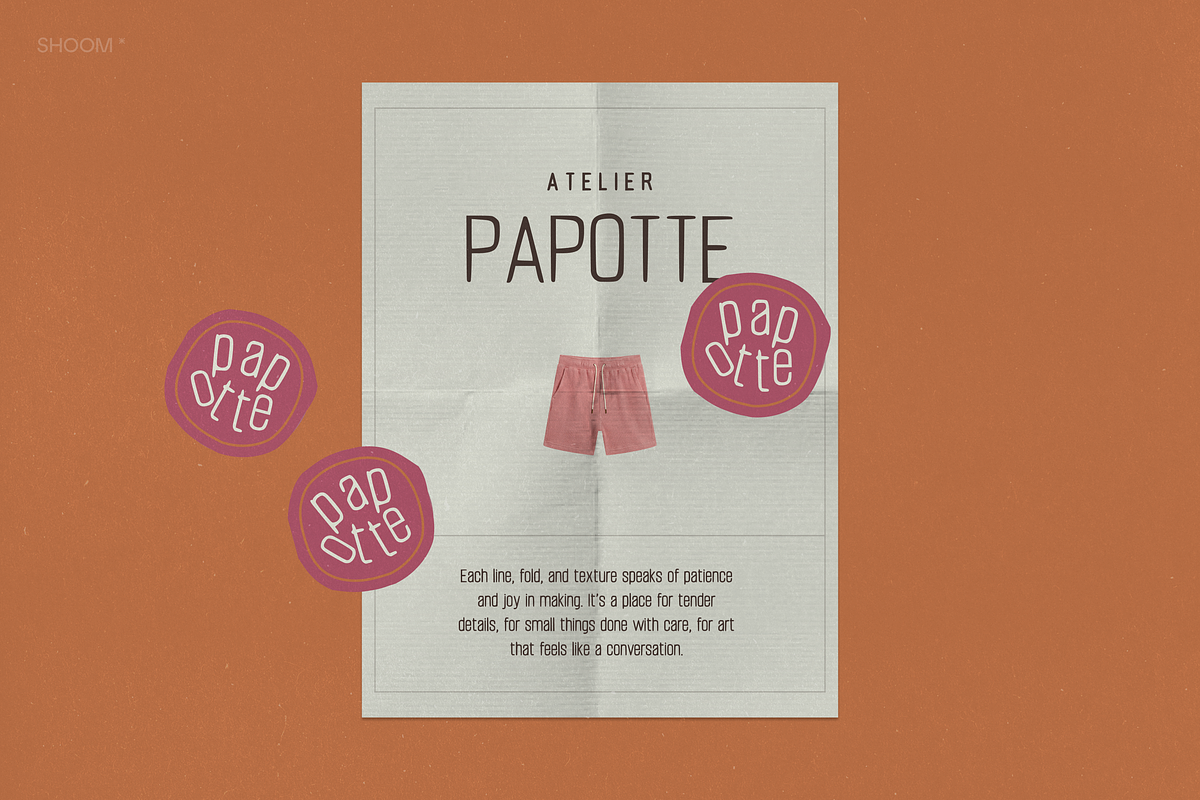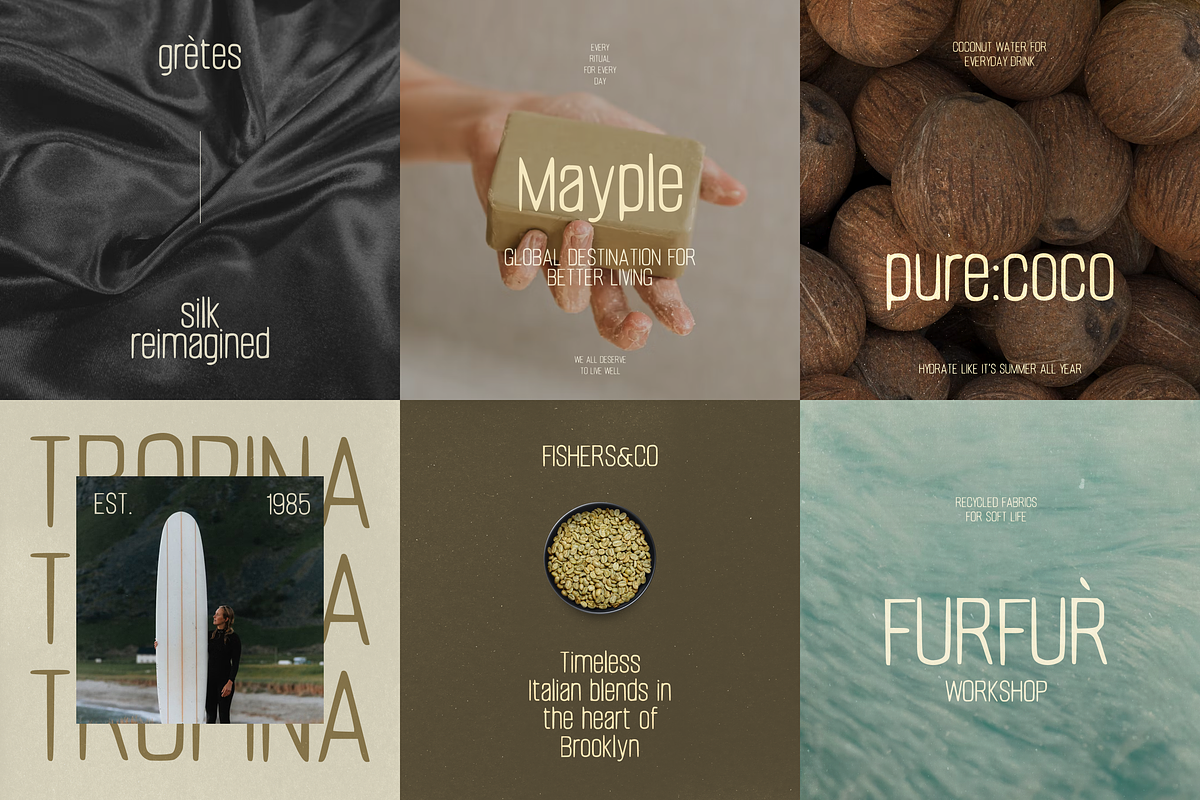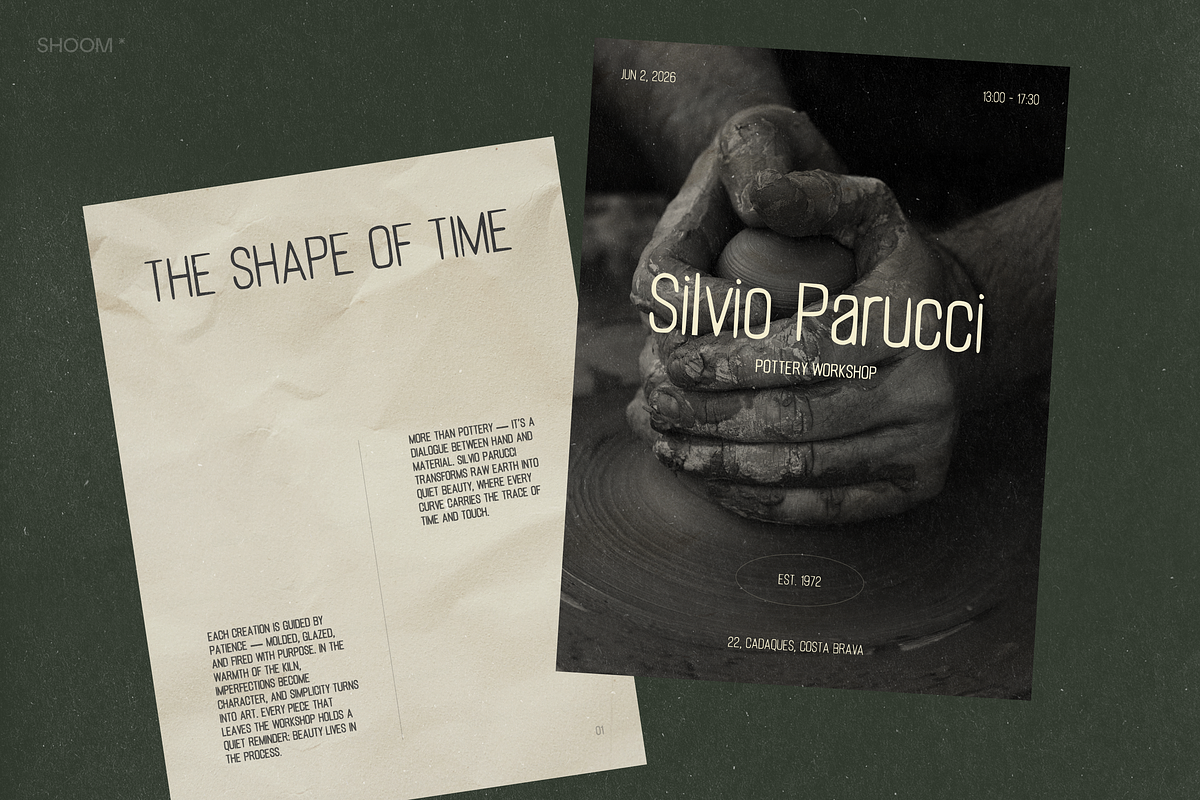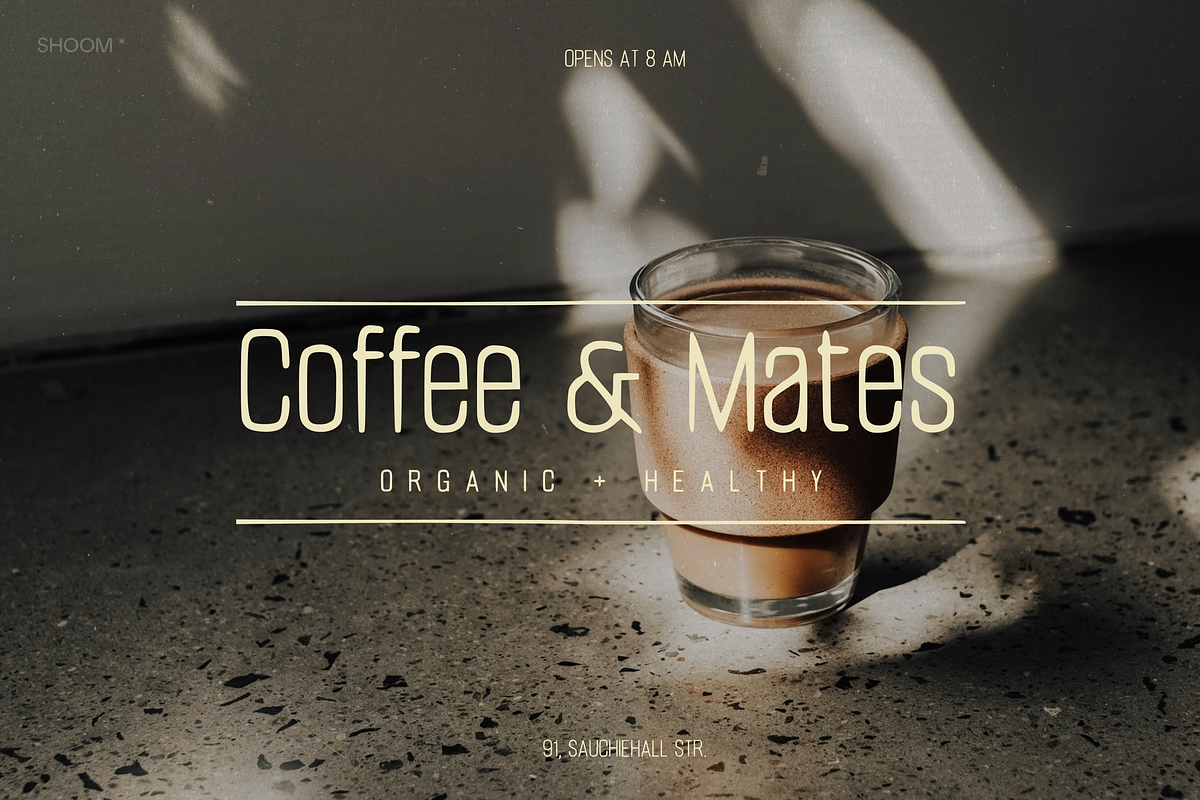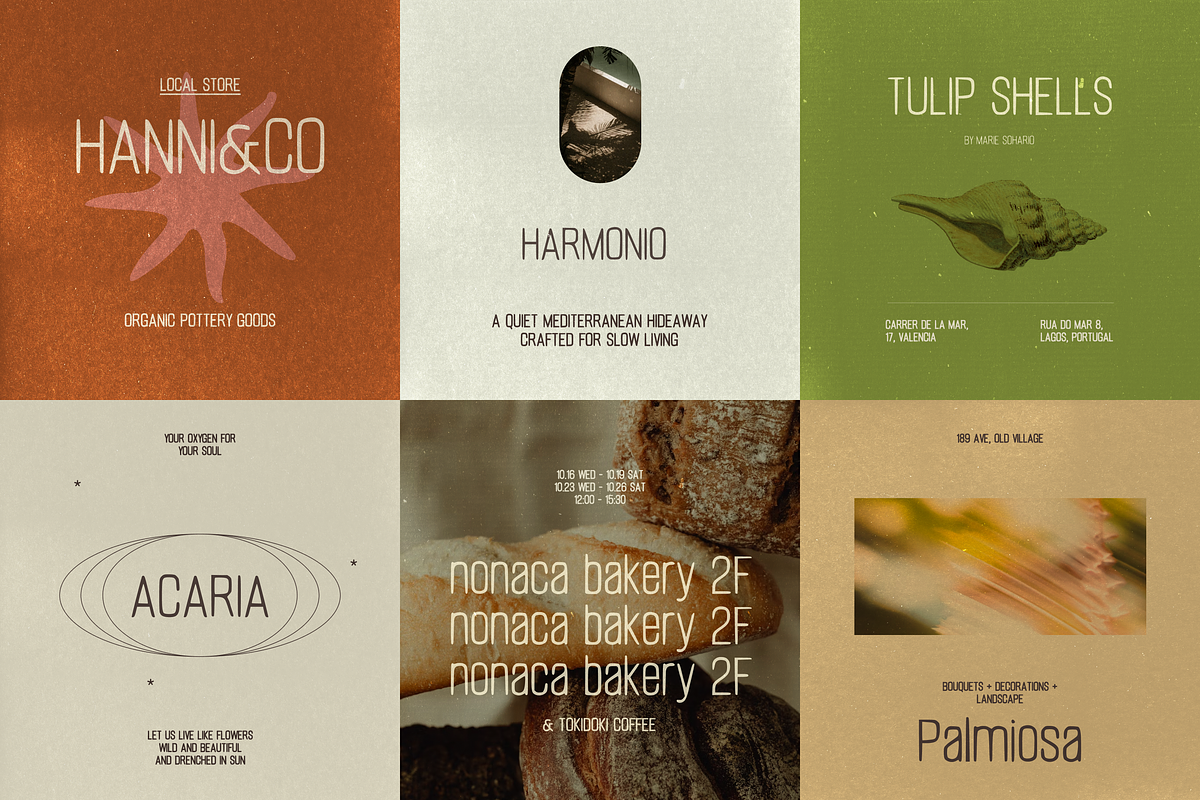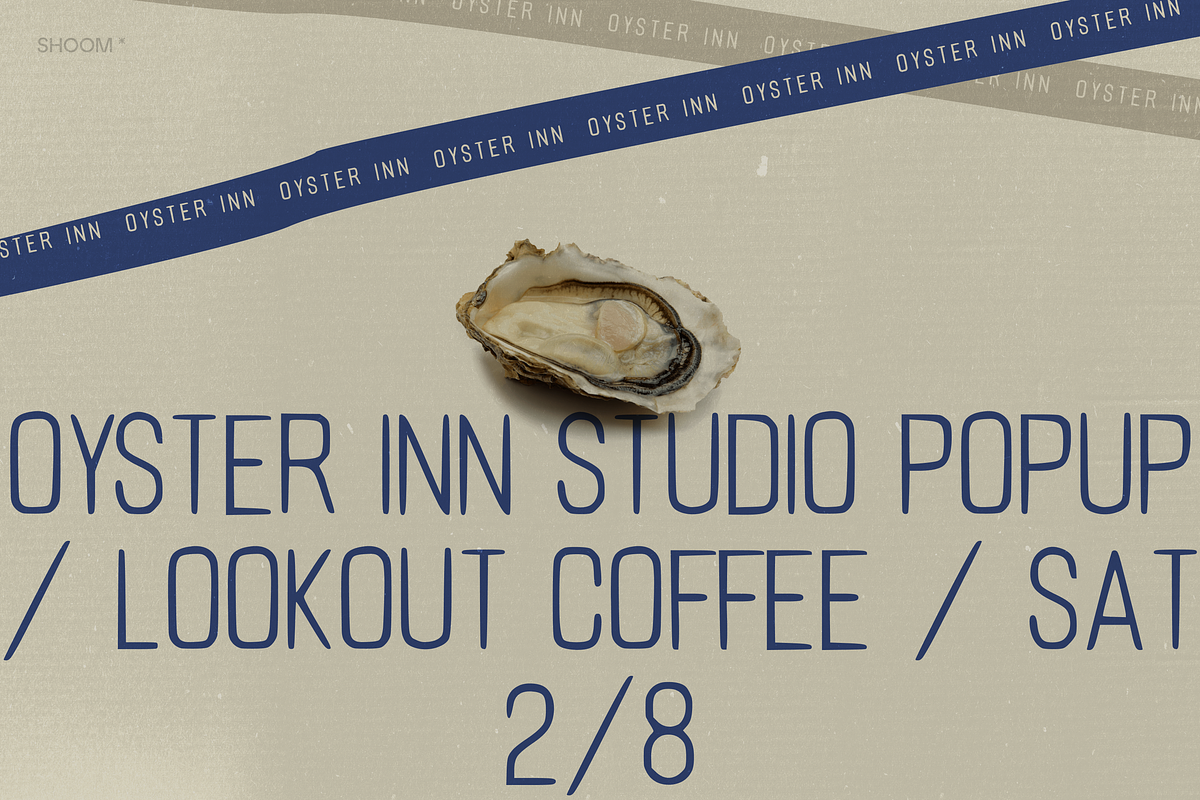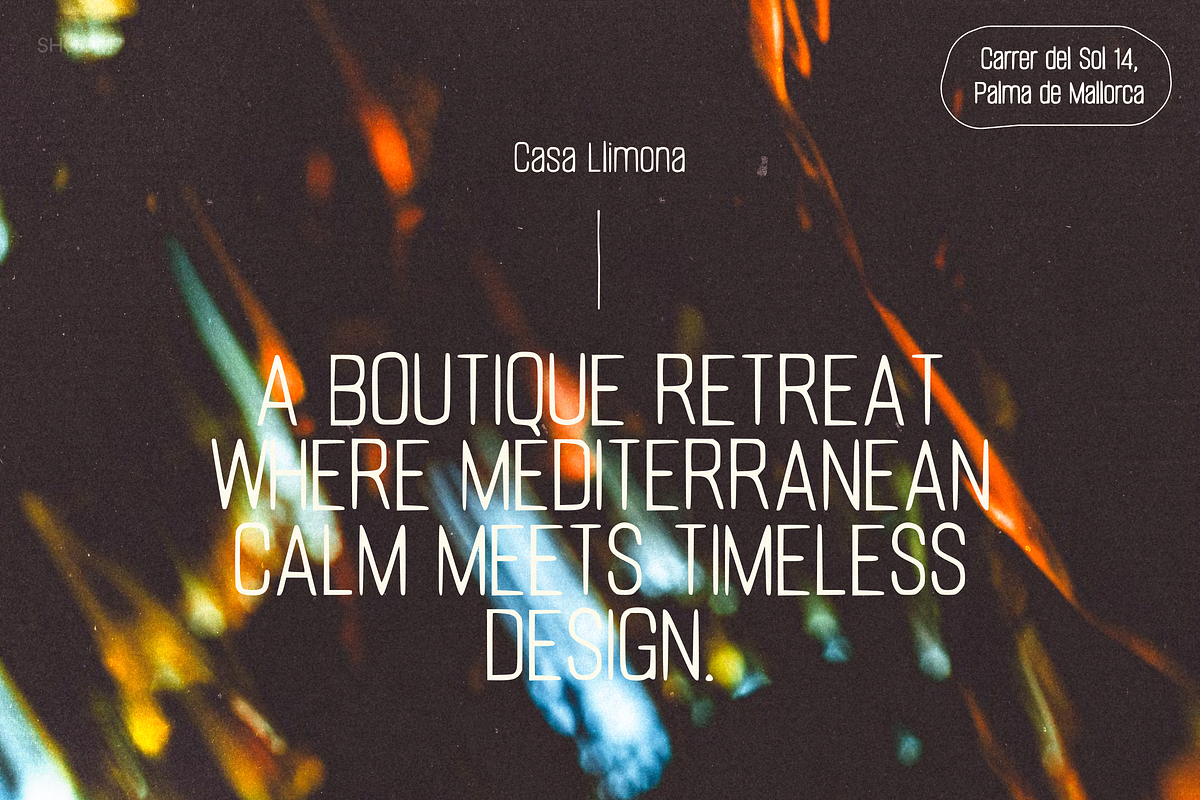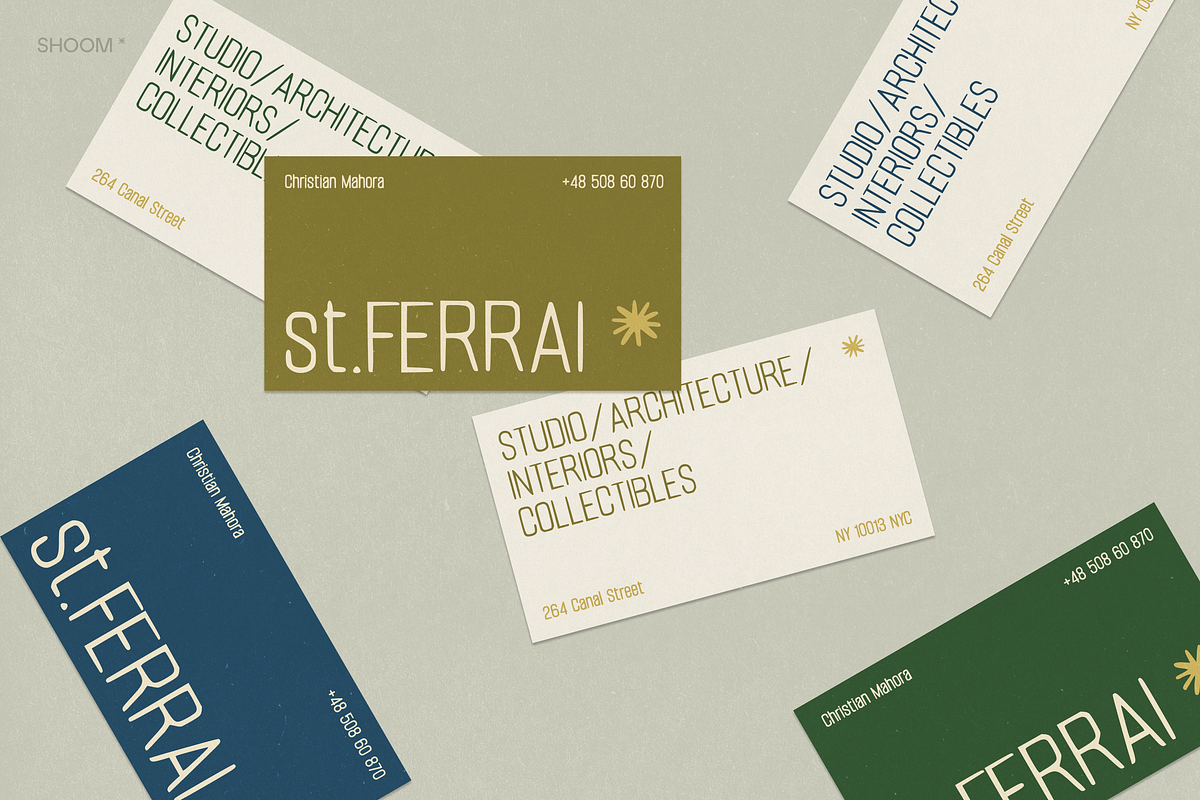
Tiny Poem - Thin & Cozy Font
✽ Where minimal meets magical, and every word feels hand-stitched.
Handwritten, but not loud — a quiet rhythm of weak letters that hum with warmth. Minimalist, soft, and full of small emotions, Tiny Poem turns plain words into soft moments — the kind that dally like sunlight on a linen curtain. For love notes, journaling dreams, packaging kindness, or branding that smiles alternatively of shouting — Tiny Poem speaks gently, and somehow says everything.
Uppercase & lowercase English alphabet
Numbers & punctuation symbols